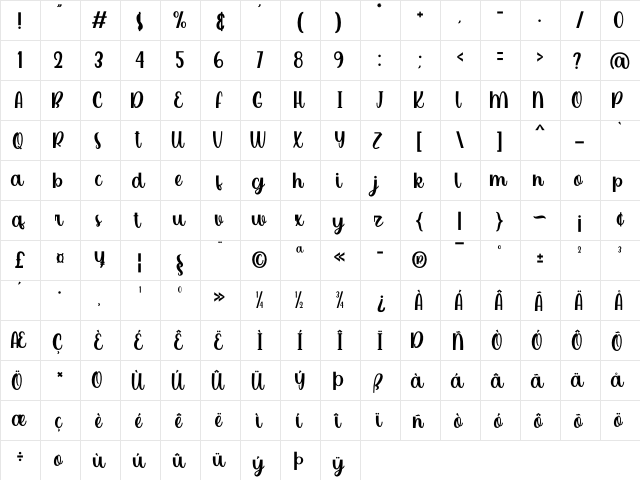
Bright Sunkiss Personal Use Onl Regular
| Foundry | BlankCraft |
| Designer | Vava Aryanto |
Design Context for Bright Sunkiss Personal Use Onl Typeface
Bright Sunkiss Personal Use Onl is a composed and adaptable typeface that performs quietly and consistently across a wide range of design contexts.